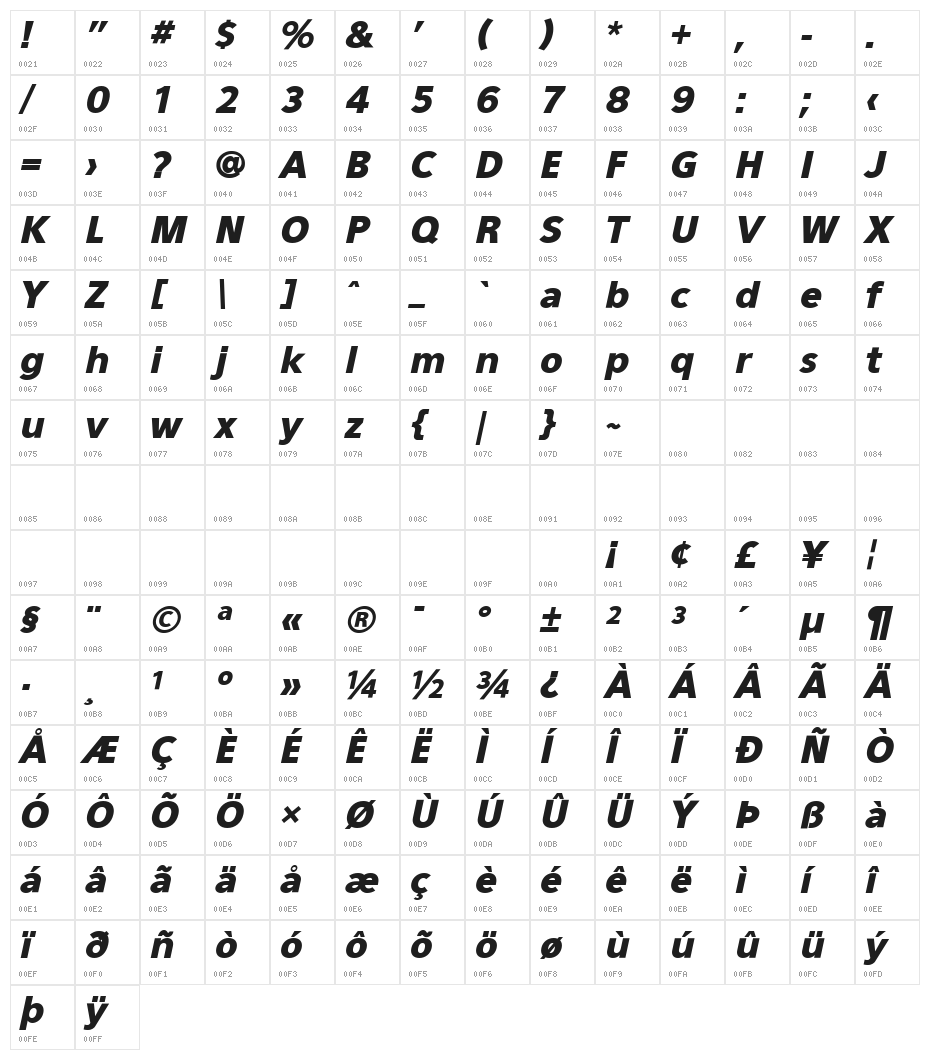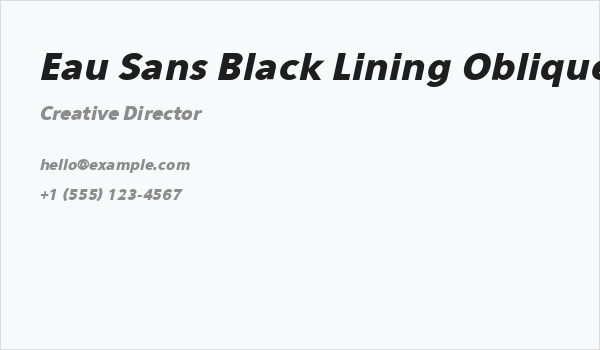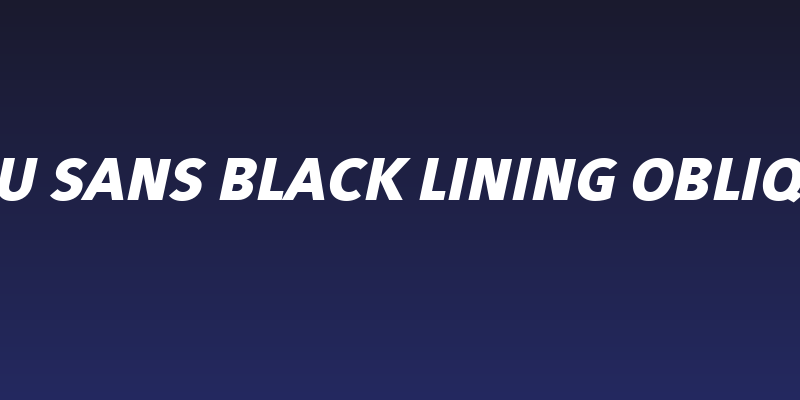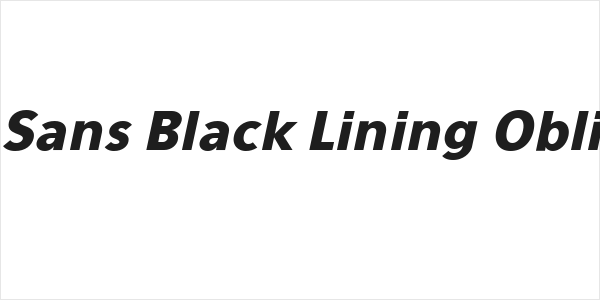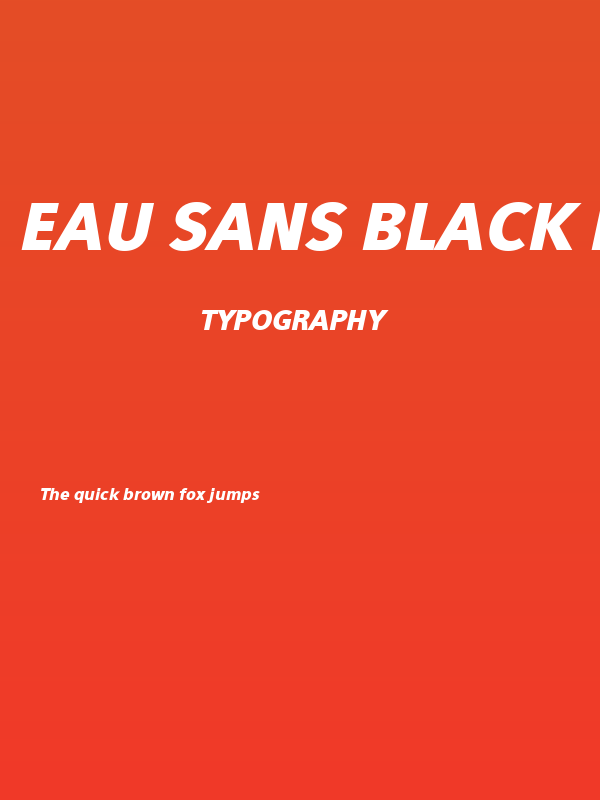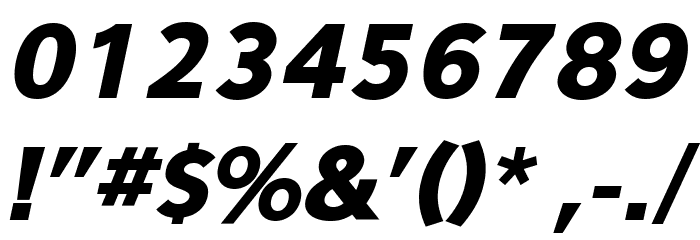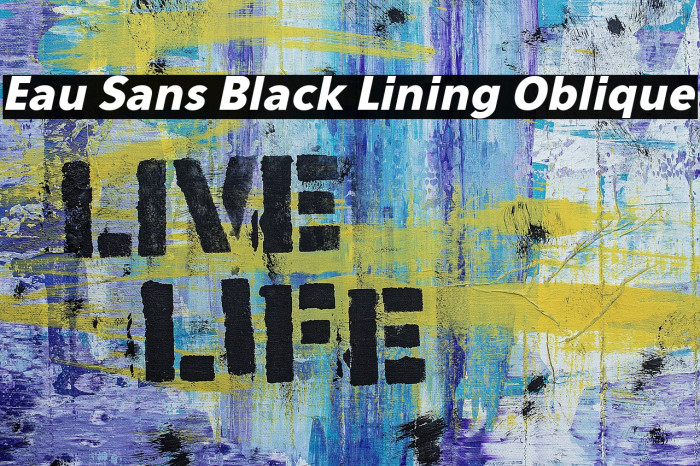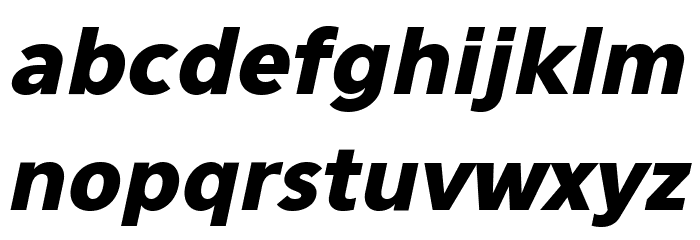
Eau Sans Black Lining Oblique Font
Eau Sans Black Lining Oblique Description
This font features a bold and dynamic sans-serif style with a distinct oblique slant, giving it a modern and energetic appearance. The characters are robust and well-defined, with a consistent stroke width that enhances readability. The uppercase and lowercase letters maintain a uniform height, contributing to a cohesive look. The numerals and special characters are designed to match the overall boldness, ensuring they stand out effectively. This font's clean lines and contemporary style make it suitable for a variety of design applications.
| Use Case | Headlines, Logos, Advertising |
| Proposed Projects | Ideal for branding, advertising, headlines, and digital media projects that require a strong visual impact. |